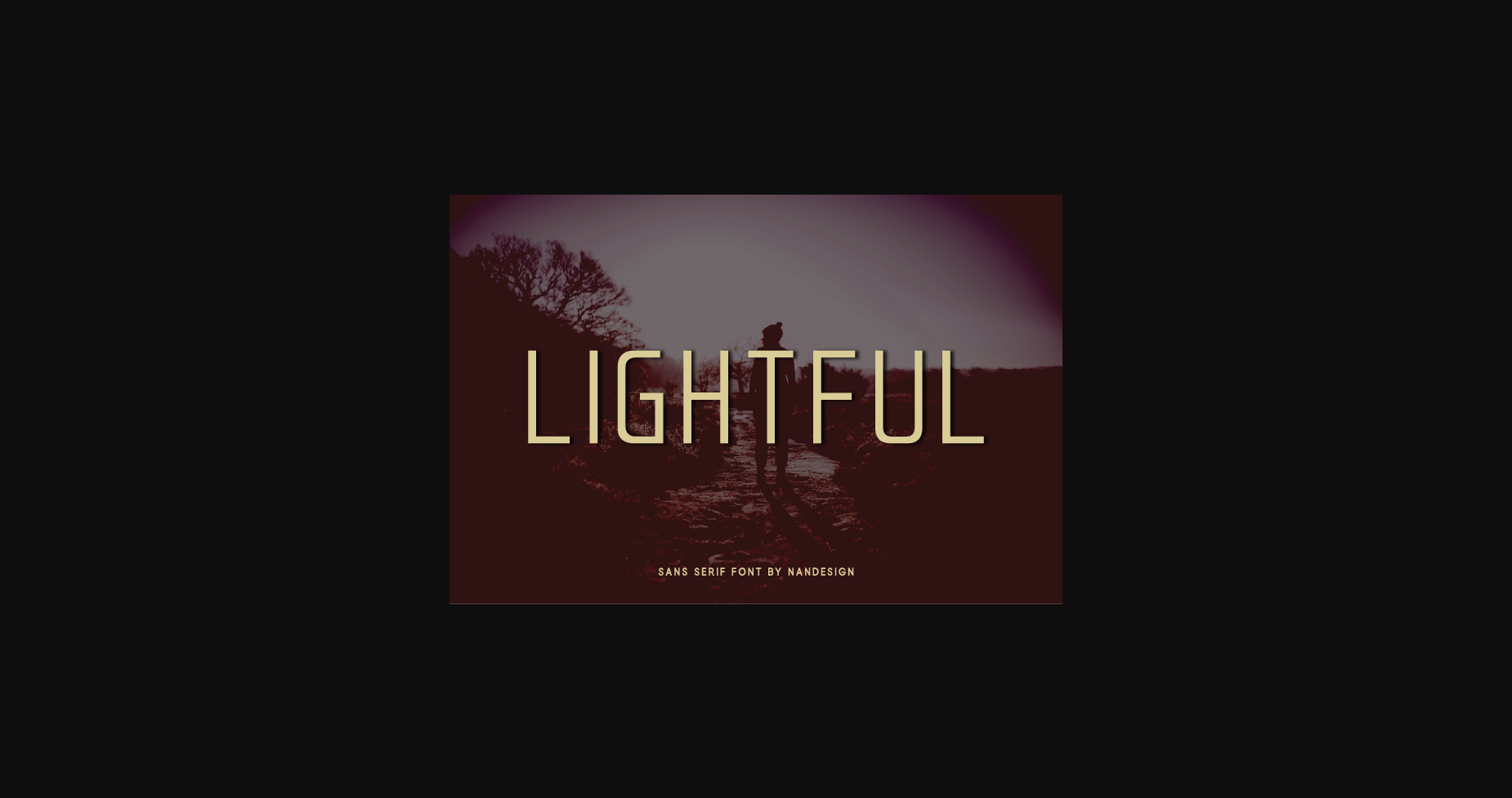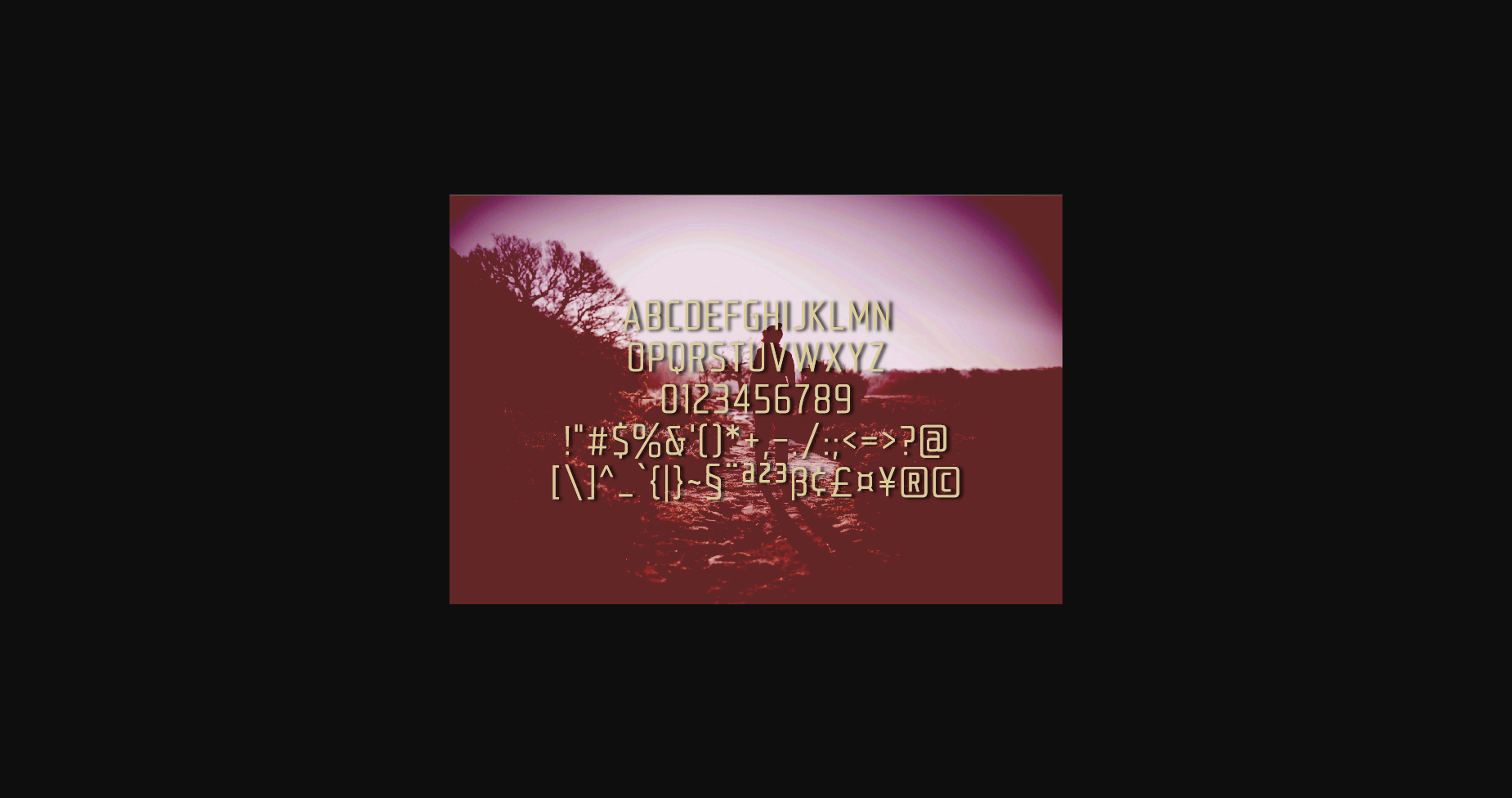
About Lightful Font
Lightful is a tall and thin lettered sans serif font.
Use it to create headings, gorgeous invitations, stunning logos, and various other designs that require a modern touch.